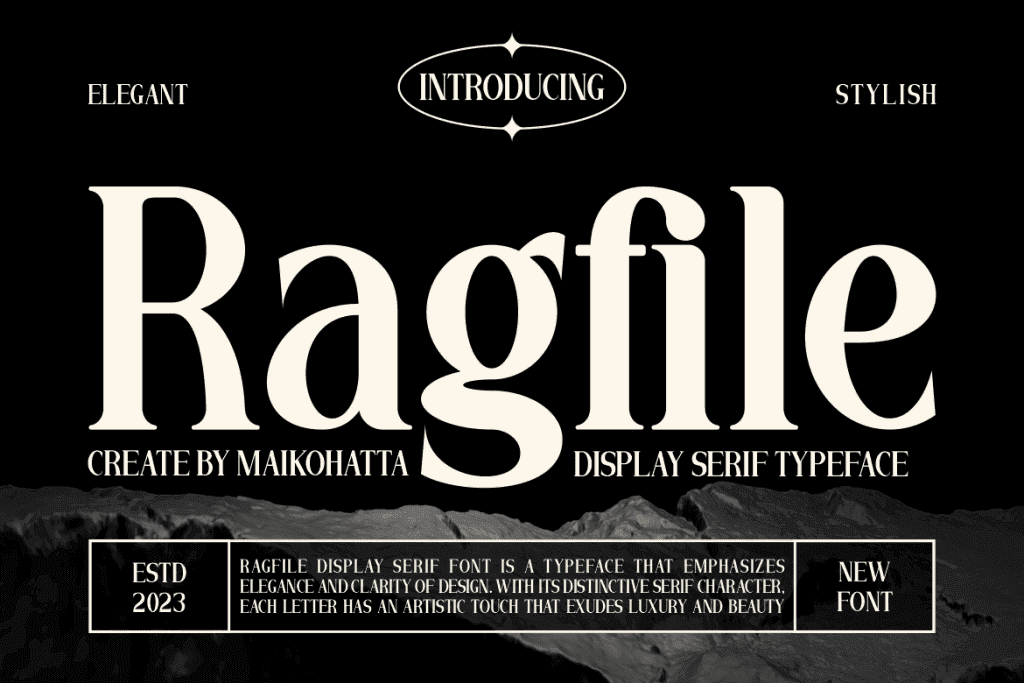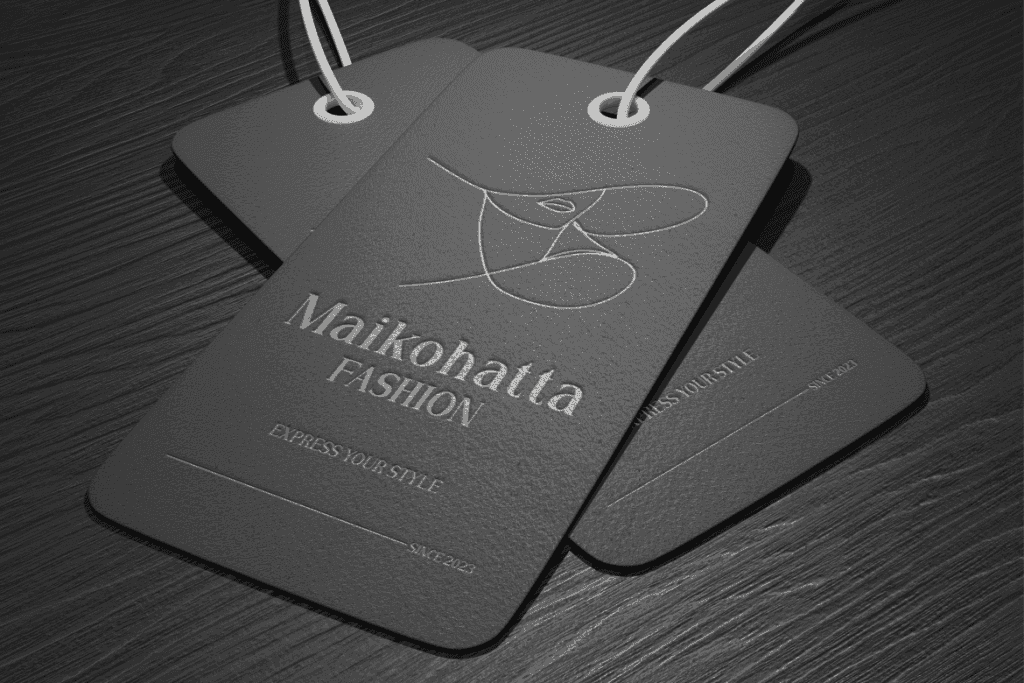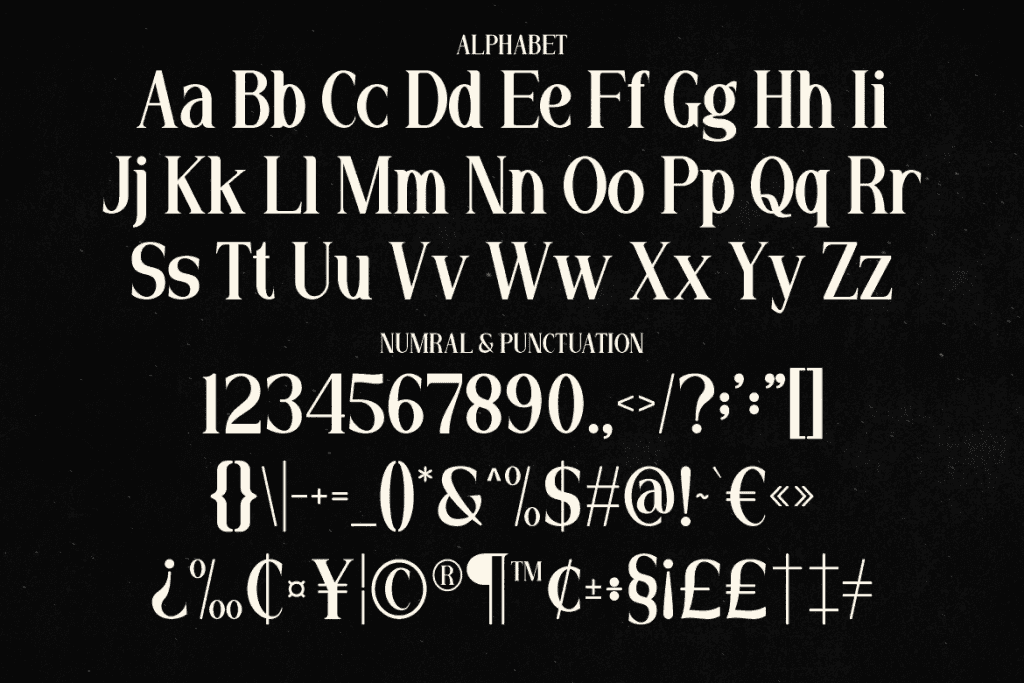
Ragfile – Display Serif Font. This font is a piece of art work that is typographic and has a balance between the classy and the edgy. Each of the letters within this font has been worked on to the finest detail, with the emphasis on the correct ratio and immaculate positioning. This font would do well in print design, promotional items, or even magazine layouts.